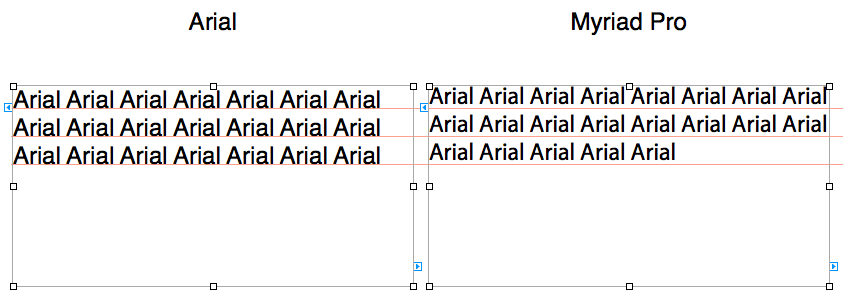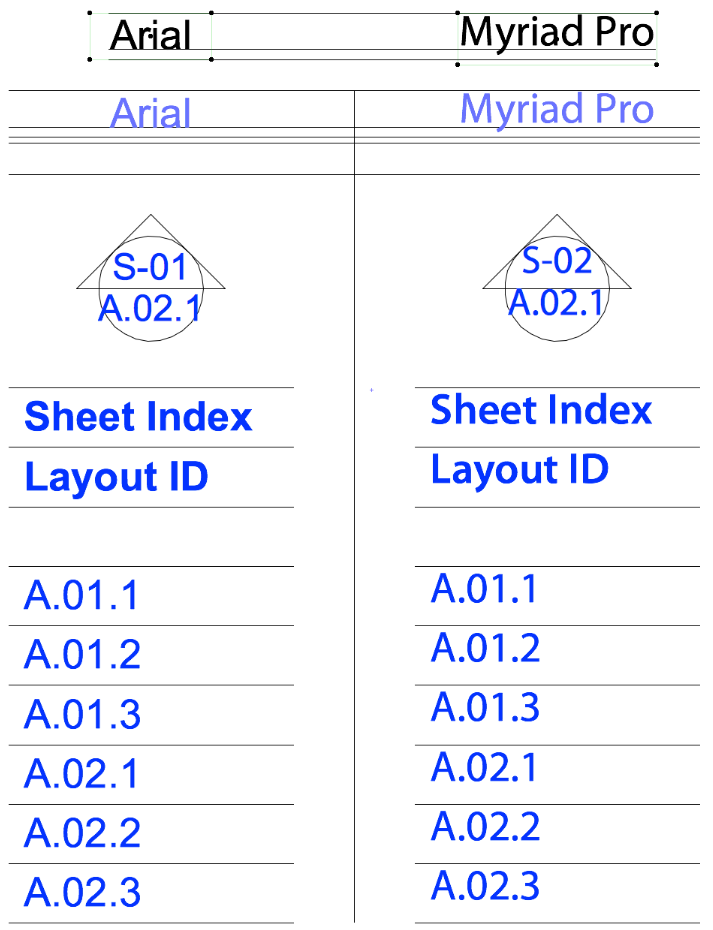
Text Font Alignment and Formatting
With Myriad Pro for example the spacing under the letter changes dramatically. It shifts all the letters up. This also happen with other fonts depending on what is used. I understand Graphisoft may not have the time to ensure every font choice works as it should but this is a system font and in my opinion much easier on the eyes than Arial.
Is there a way to fix this application wide? I know that with section/elevation markers the text can be shifted separate to the marker geometry, but that's another frustrating step and it doesn't address the root of the problem.
Is this something Graphisoft can fix or would another (drastic) solution be to use a font editing software to change the actual font?
Image attached to explain the way this looks side by side
What I see in AC 15 on 10.7.2 is that Myriad Pro is an Opentype / Postscript font but that Arial is an Opentype / TrueType font.
My system has an Adobe font called Myriad Web Pro which is an Opentype / TrueType font and its size and alignment are identical to Arial. (Size: "M" graphic heights equal each other and relative position inside the text handles is the same.)
I tried several other PostScript fonts (Arno, Chaparral, etc.) and they have the same vertical positioning issue.
So, either it is a system issue with PostScript fonts on the OS side not reporting their font metrics correctly to applications (ArchiCAD) or a Graphisoft issue of not positioning the font baseline properly for PostScript fonts...
Edit: PS I just tried Myriad Pro, Myriad Web Pro and Arial "M" characters adjacent to one another in Word (2008/Mac) and the baselines all align - and, strangely, there the M-size of Myriad Web Pro matches Myriad Pro, which is shorter than an Arial "M". Seems to me that if Word is able to read the font metrics, that ArchiCAD should be able to and that this must be a bug on Graphisoft's side. Will report after others chime in ... hopefully someone else remembers the old discussion of this same issue...
Good investigation, appreciated. I'll have a look at Myriad Web Pro. And yes, I've never found a problem with other software reading that font or others.
Attached is an example were the Dimensions ignore the base lines therefore all match regardless of font type while the Grid Lines do not.
This is not necessarily AC's fault the base lines also move in Apple Apps.
By the way, look at those lovely numbers, the stout 1 proudly defending the elegant zeros. Why wouldn't you want this font to look correct!
And in looking at Adobe Illustrator there's only a micron difference between Arial and Myriad Pro. Not enough to call a problem.
I'd love to solve it, I fear that if I can't I'll throw my hands up in despair and resort to using comic sans for all documentation!
I was glad to read your remark about font positions. There are some things which are good to know about the issue:
This behavior of texts is not really ArchiCAD specific. It happens because fonts can have different ascent, descent, leading values resulting even if they have the same nominal size (e.g. 12 pt, 10 mm) they can appear in different size and in a different position in the textbox having different line spacing.
You can check this in TextEdit as well. In the attached screenshot all of the three fonts are set to the same (48 pt) size. If you zoom into the image you will see that each font has a different size and position. (By the way, Myriad Pro is not a default system font on Mac. Please find the list of the default fonts here:
Ideally though, all fonts would just work as they do on the dimension lines.
I realise it might be a little bit of work to have all 40 million fonts in the world work perfectly. Maybe I can just put in a special request for Myriad Pro